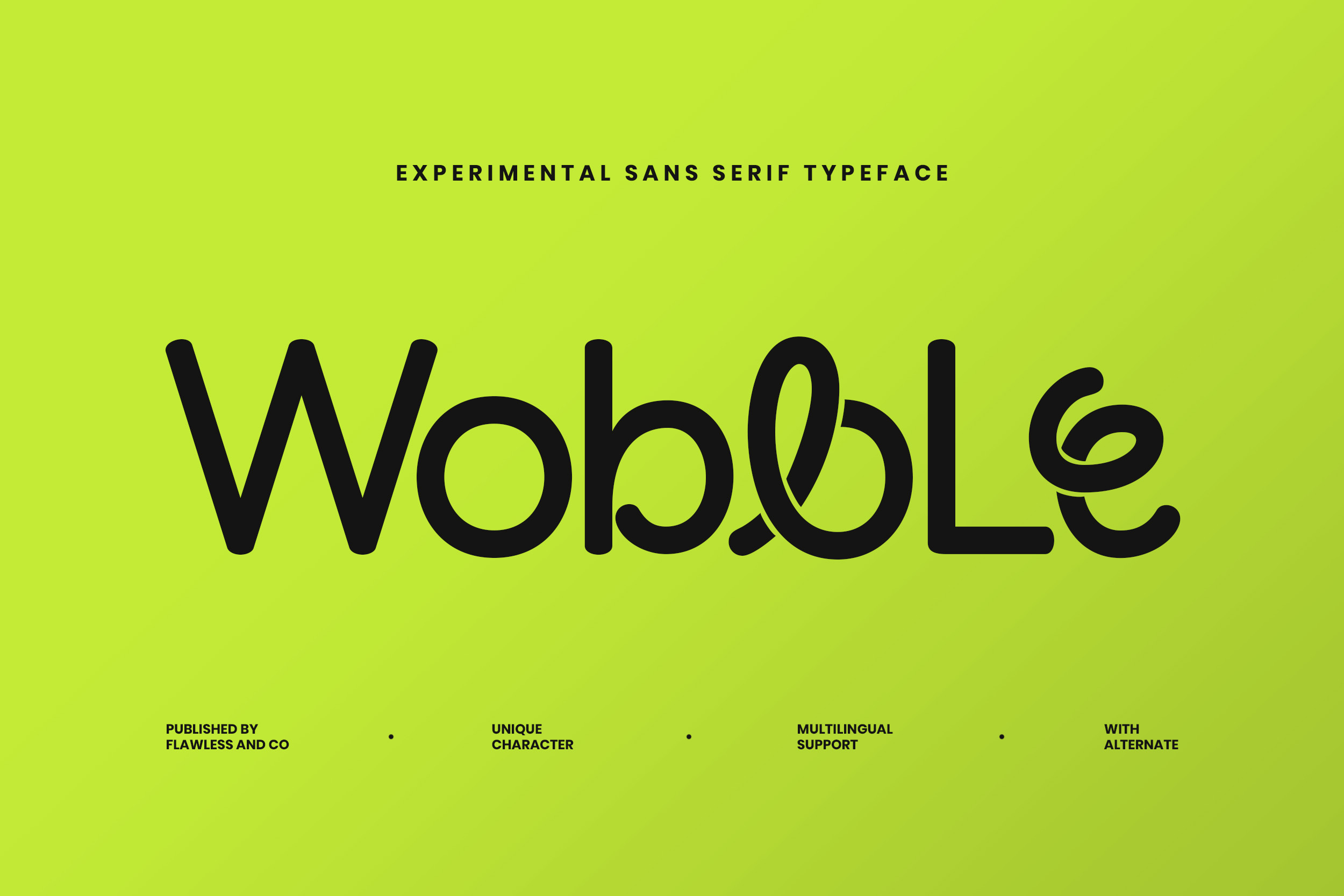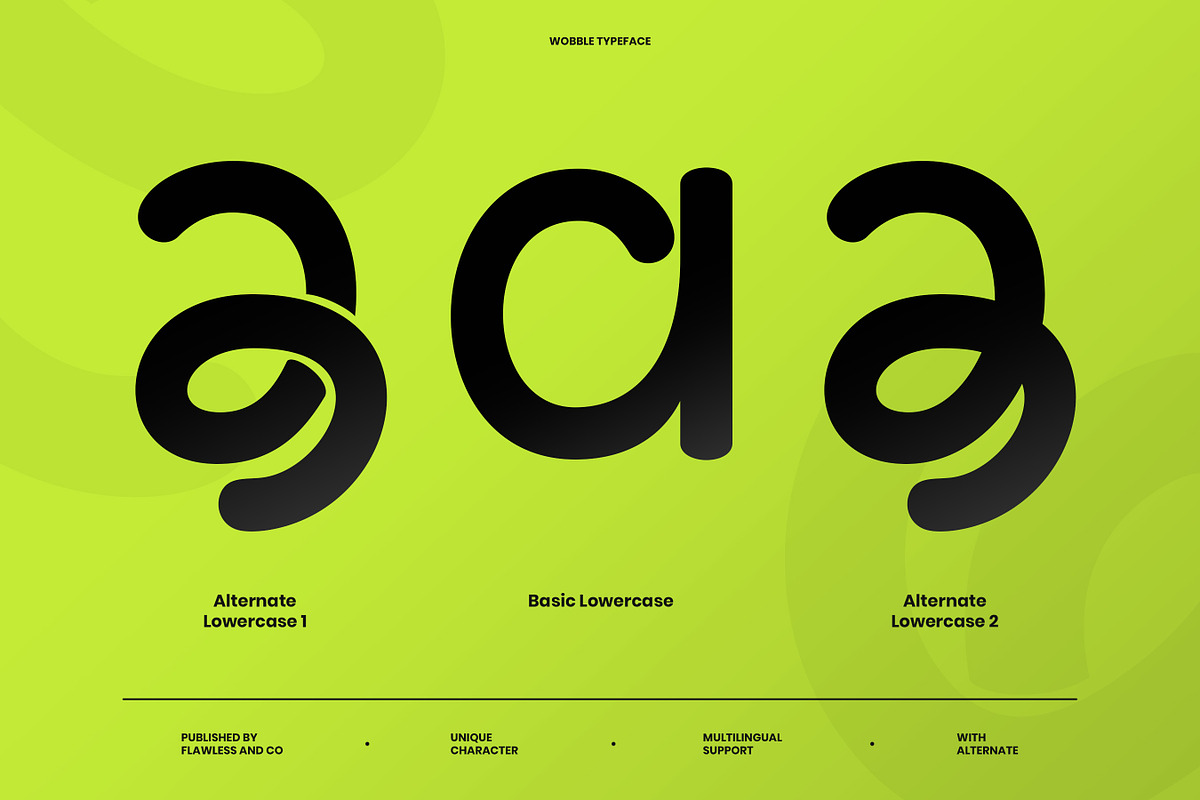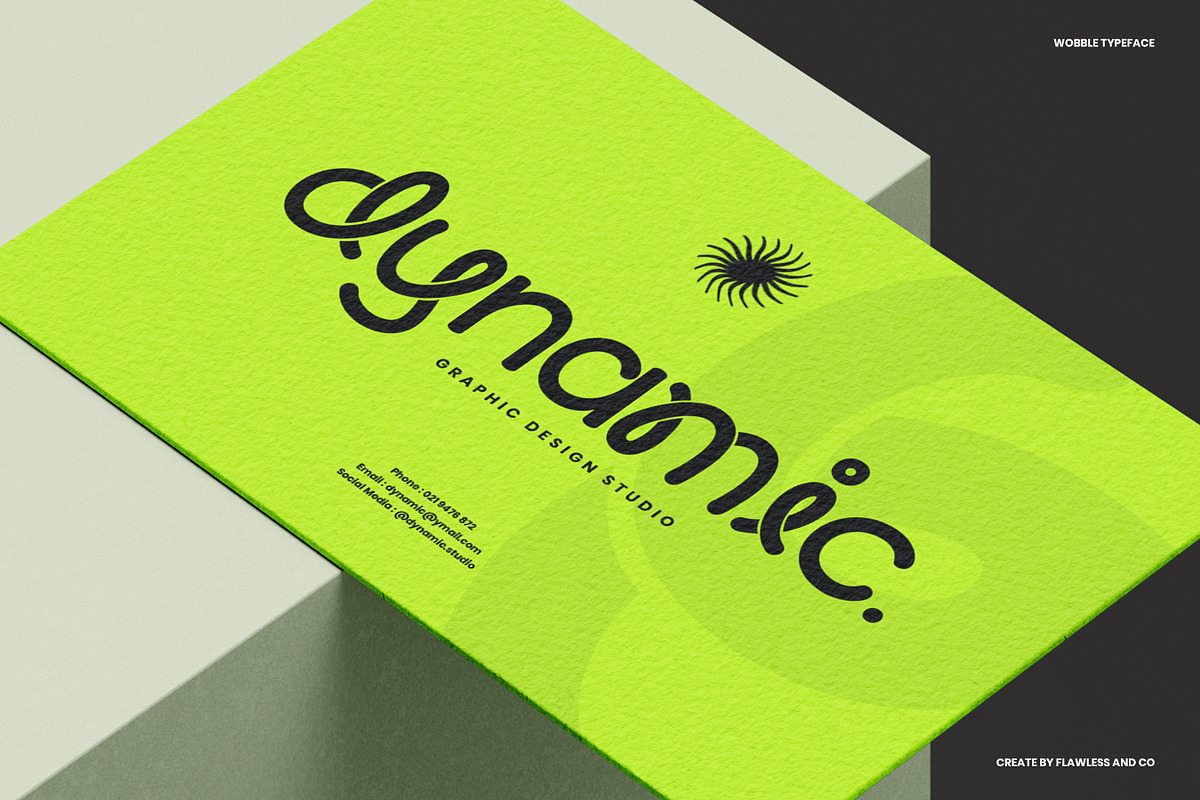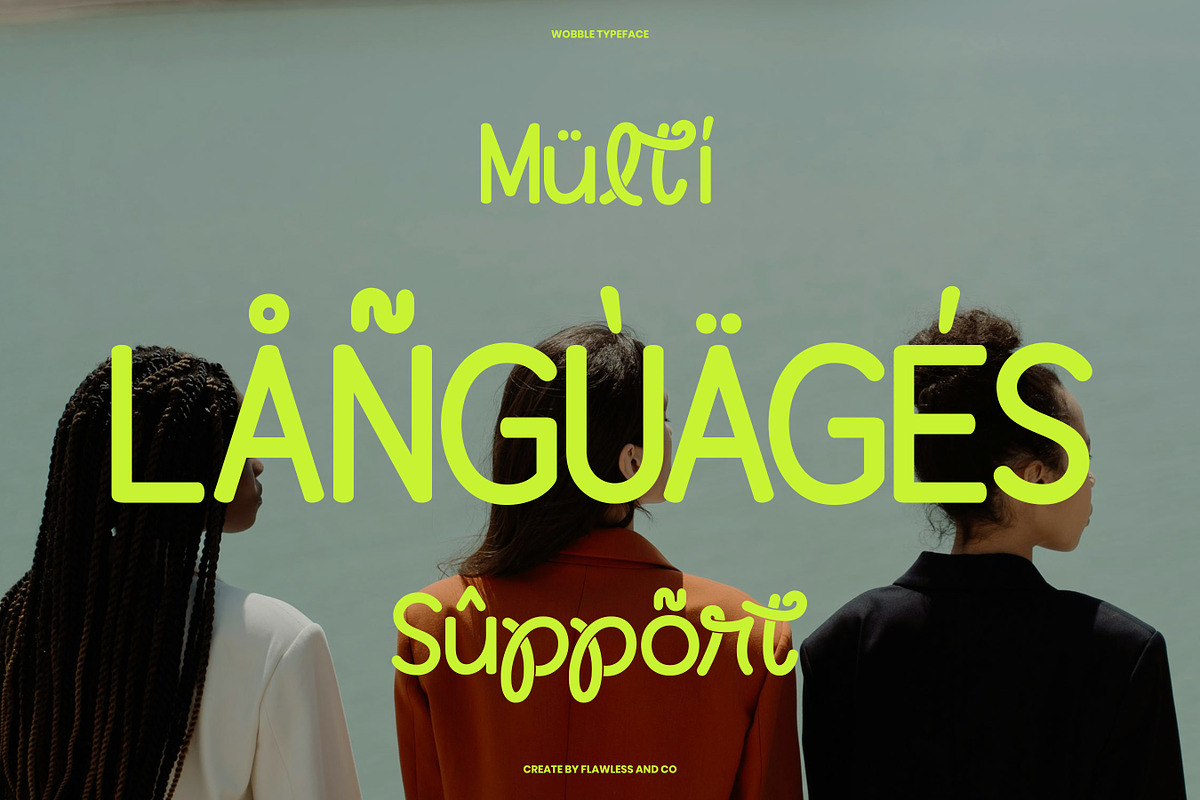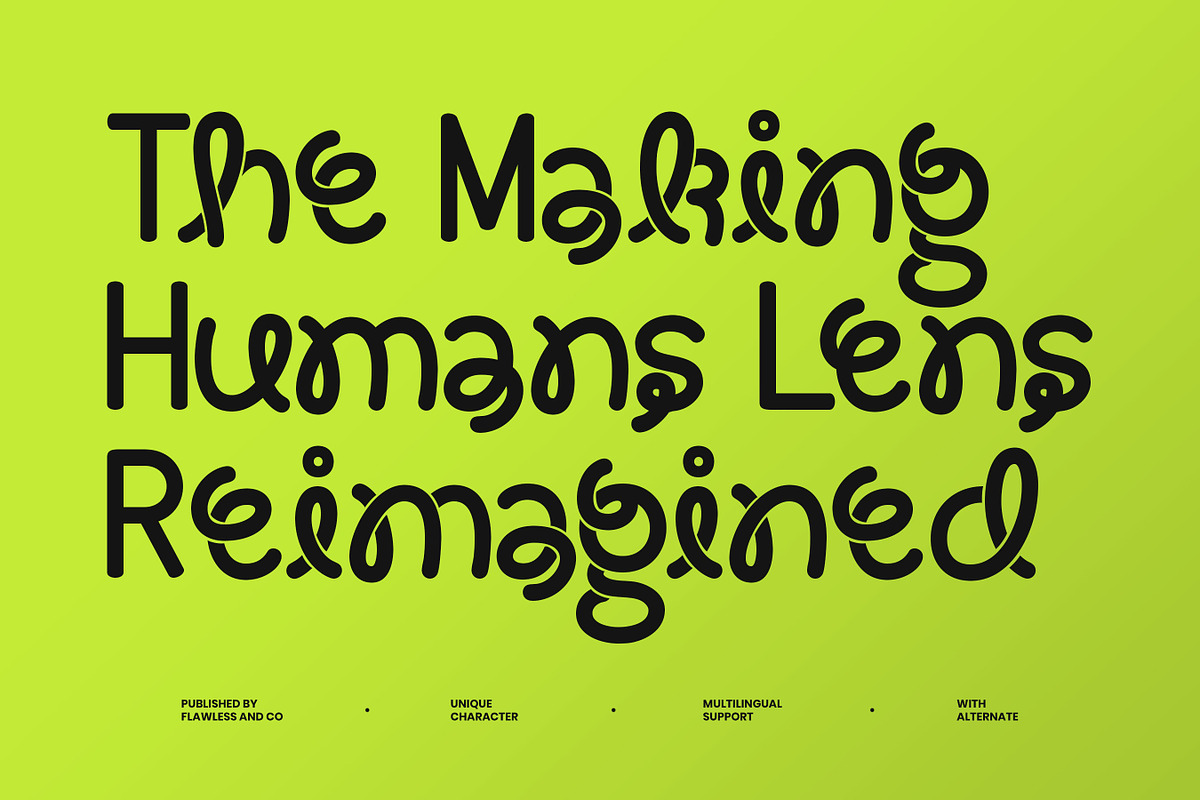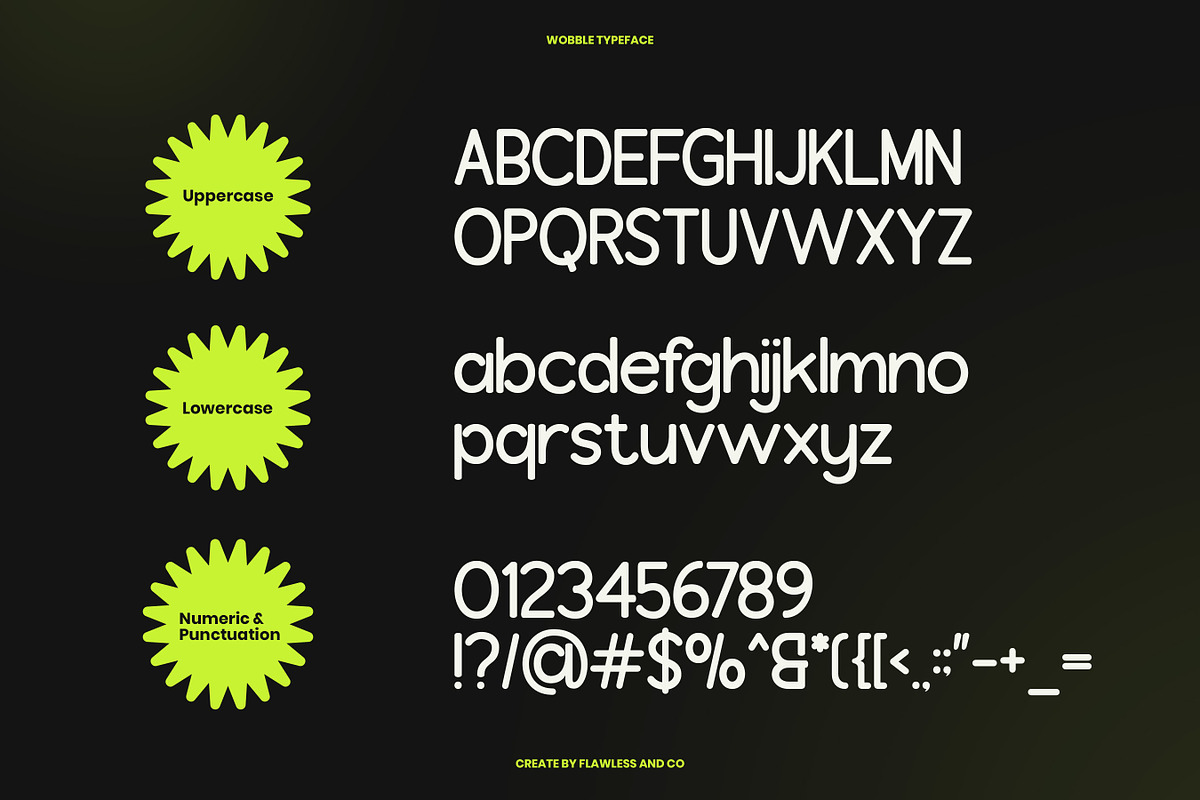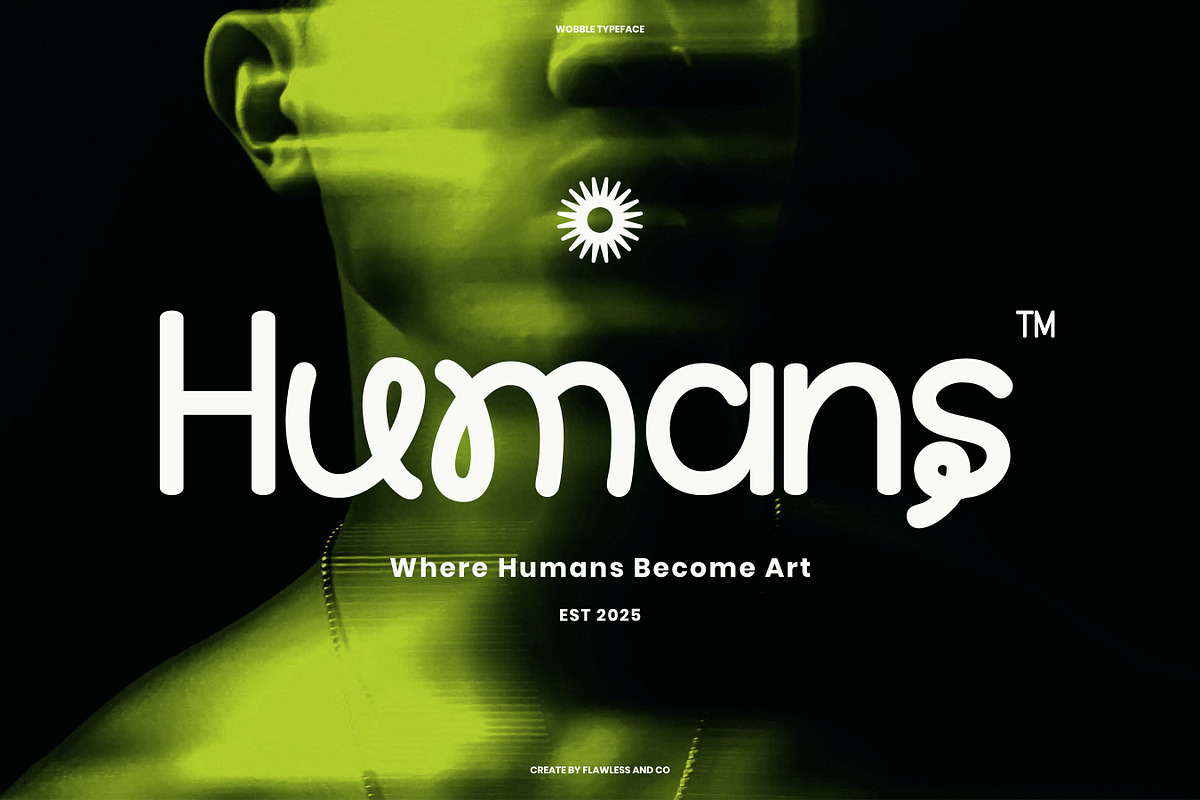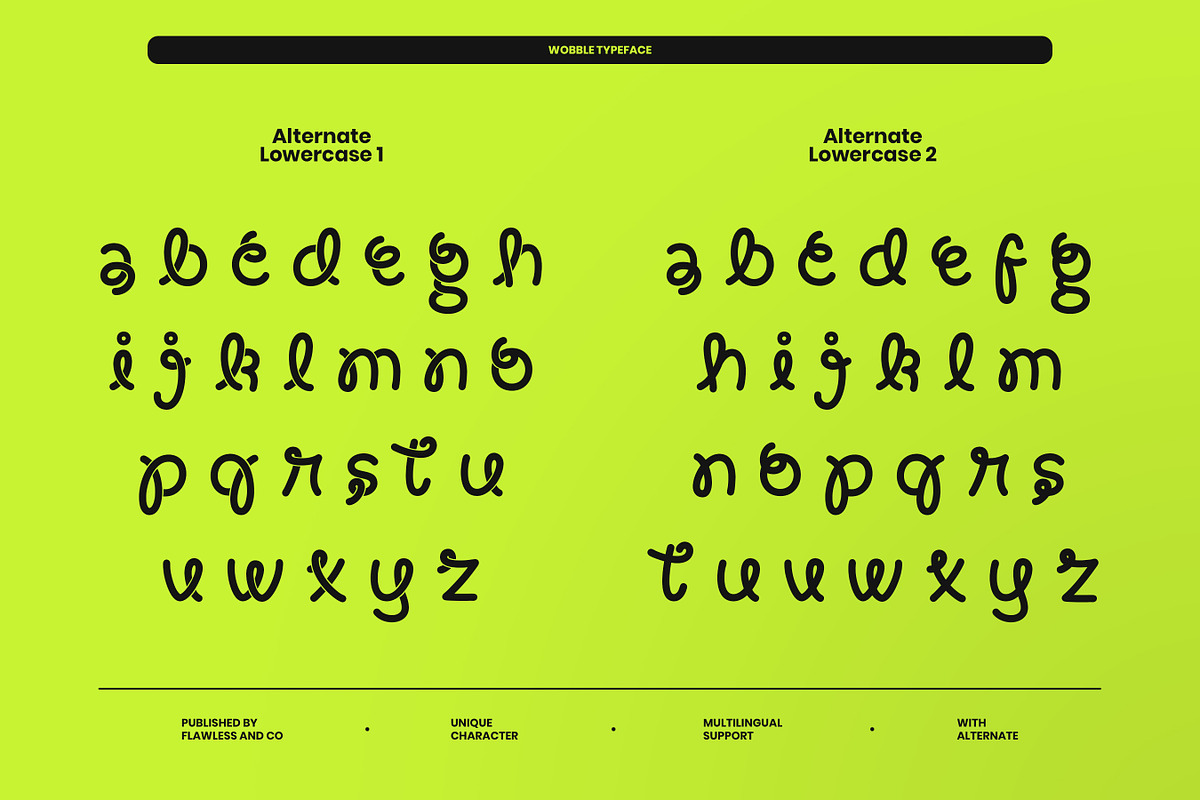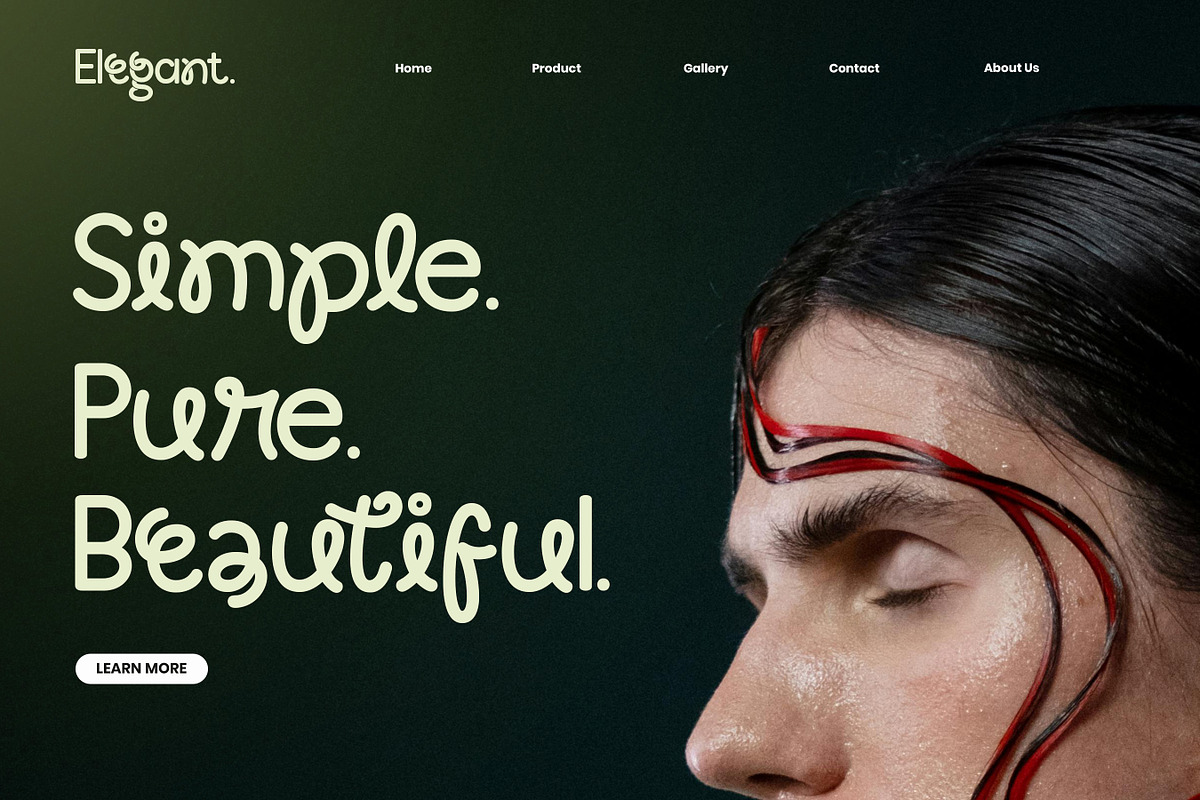
Wobble - Sans Serif Typeface Font
Wobble – Experimental Sans Serif Typeface
Wobble a quirky and playful experimental sans serif font designed to break the norm. With its bold rhythm, dynamic curves, and twisted letterforms, Wobble delivers a truly unique personality to any creative project. Crafted for designers who dare, Wobble comes with alternate lowercase characters, multilingual support, and endless possibilities. Whether you're working on branding, posters, editorials, or experimental layouts, Wobble gives your typography an unexpected edge.
Who Should Use Wobble?
Wobble is made for designers, creatives, and brands who aren’t afraid to be bold, experimental, and unconventional. If you love to play with form, push boundaries, and make your typography stand out, Wobble is your perfect tool.
Ideal for:
- Experimental graphic designers looking to break the grid
- Creative studios with bold branding visions
- Editorial designers crafting eye-catching layouts
- Poster artists, typographers, and visual storytellers
- Anyone who wants their type to wobble with character and attitude
A Must-Have Font for Brand and Logo Creators and Designers
Wobble is not your average font — it's a bold statement. With its quirky, experimental shapes and playful rhythm, Wobble brings a fresh, unconventional edge to branding and logo design. It’s perfect for creators who want their identity work to feel original, dynamic, and full of personality. Whether you're building a rebellious brand or an eye-catching logo, Wobble helps your work stand out in all the right ways.
Why Choose Wobble for Brand and Logo Projects?
Wobble offers a perfect balance of bold experimentation and strong visual impact — making it a go-to choice for standout branding. Its irregular, expressive shapes give logos and brand identities a fun, unpredictable energy while remaining legible and memorable. Whether you're designing for a creative startup, a fashion label, or a cultural project, Wobble brings a sense of character and modern flair that sets your work apart from the ordinary.
Suitable For:
- Creative brand identities and logo design
- Experimental poster and headline layouts
- Youth-focused fashion or lifestyle branding
- Music, art, and culture-related visual projects
- Social media graphics with bold personality
- Editorial and magazine designs seeking a fresh edge